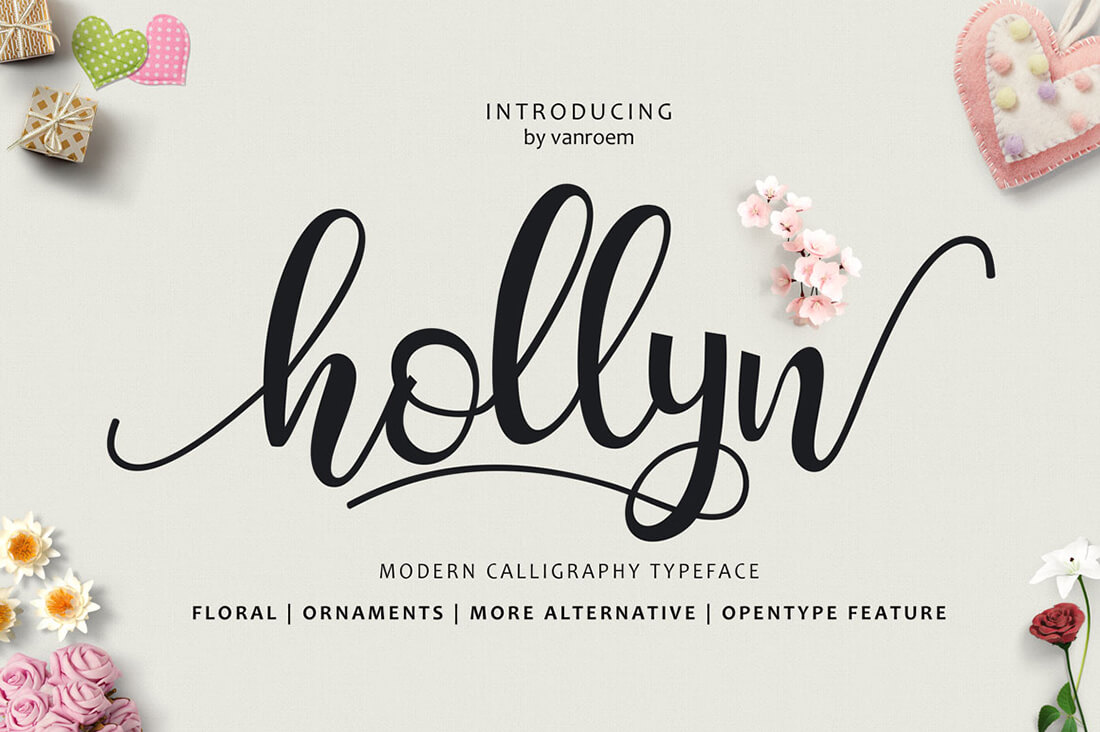
Love Font Is A High Quality Handwritten Font That Is Designed By Mahima Khullar And Is Available For Free Download Personal & Commercial Use.
Restian is to use for any kind of design such as branding projects,luxury, exclusive logo, wedding designs, social media posts, advertisements, product packaging, product designs, label, photography, watermark, invitation, stationery and any Bucherry monoline script is an amazing free handwriting font that is available for personal projects only. However, not all handwritten fonts are legible.
20,000+ best fonts download silmastin is a handwritten script font with magical pressure. Calligraphy school handwritten brush trash graffiti old school various. Includes full set of gorgeous uppercase.
Free Aharon Handwritten Brush Font
A sleek modern calligraphy signature script that comes with two lowercase stylistic letter sets, premade beginning and ending swashes for uppercase! Alien animals asian ancient runes, elvish esoteric fantastic horror games shapes. Revisthond font is an authentic monoline handwritten script font, perfect for branding, wedding invites, cards, and/or any other suitable projects.